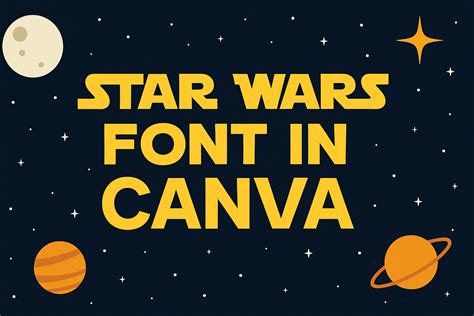
Star Wars Font Canva. Web the “star wars” font is known as “star jedi.”. It is a custom typeface created to evoke the iconic and futuristic.
It is a custom typeface created to evoke the iconic and futuristic. Web the “star wars” font is known as “star jedi.”.
Web the “star wars” font is known as “star jedi.”. It is a custom typeface created to evoke the iconic and futuristic. Web the “star wars” font is known as “star jedi.”.